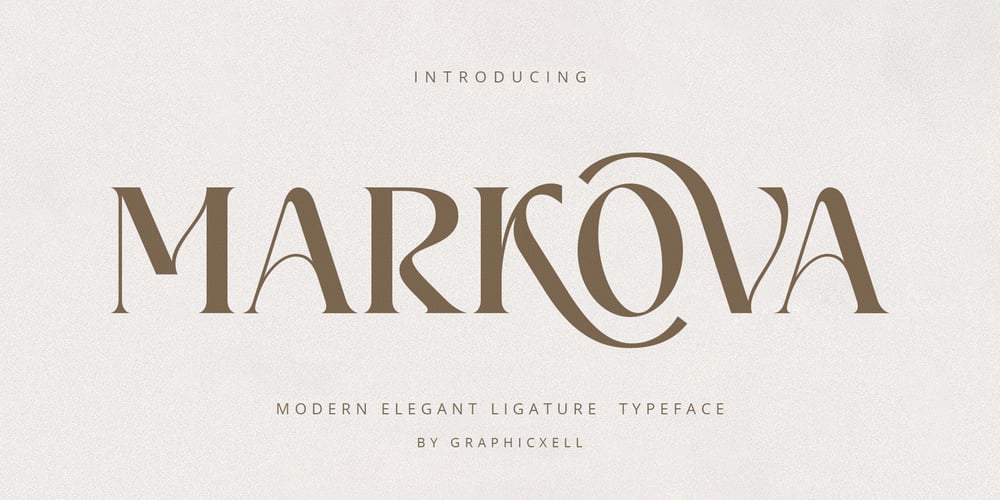
Markova
Markova font
Markova Font Family was designed by Graphicxell and published by Graphicxell. Markova contains 1 styles and family package options. **Minthe Ligature Typeface** inspired by the famous minimalist logo perfect for the purposes of designing templates, brochures, videos, advertising branding, logos and more.**What’s Included:**+ Standard glyphs+ Web Font+ Ligatures+ International Accent+ Works on PC & Mac+ Simple installationsAccessible in Adobe Illustrator, Adobe Photoshop, Adobe InDesign, and even work on Microsoft Word.PUA Encoded Characters – Fully accessible without additional design software.Fonts include multilingual support**Image used**: All photographs/pictures/vectors used in the preview are not included, they are intended for illustration purposes only.**Thank You**